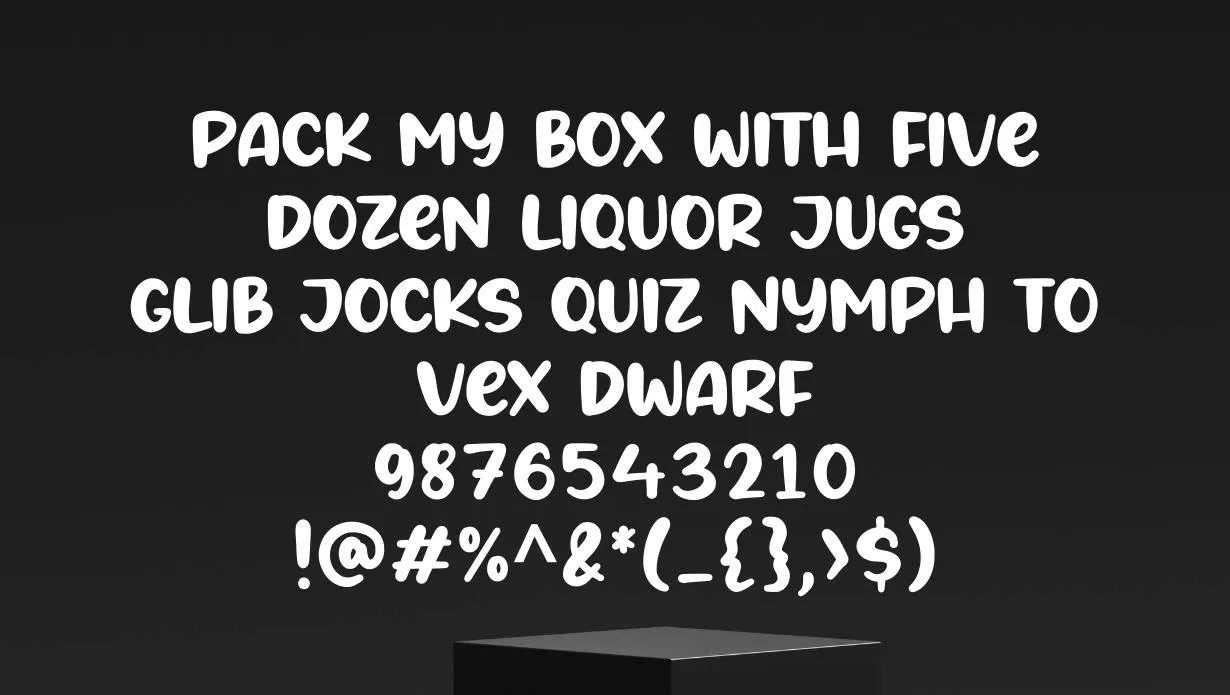
The Angel Cookie Font is a popular fancy font used by many graphic designers. It has a unique, playful look that makes it perfect for adding personality to any project. The Font was created by designer Simon Stratford in 2006. It is available in both TTF and OTF formats.
The Font has a unique history. The Font was inspired by the work of artist Edward Gorey. Gorey’s work often featured playful, whimsical illustrations. This same aesthetic is evident in the Font. It is quite similar to the zapfino font and it has a pairing personality with that, so you can combine them and make something crazy stuff.
The Font is a versatile font that can be used for a variety of purposes. It is perfect for adding personality to any project. Whether you are looking for a unique font for your brand or website, or simply want to add some whimsy to your next project, the font is a great choice.
Who Used Angel Cookie Font?
This font can be used for branding purposes, such as in logos or on websites. The Font can also be used for adding personality to any project. Many designers used this font in Adobe software like photoshop, illustrator many more to make designs. The Font is perfect for website design, as it is unique and versatile.
This font is also commonly used for various creative purposes such as invitations, greeting cards, and even website design. The glyph of this font has a very distinct style that is both elegant and playful. The shapes are rounded, and the strokes have a bouncy quality to them. This makes the font very easy to read, even at smaller sizes.
Angel Cookie Font Family Appearance
| Name | Angel Cookie Font |
| Designer | Edward Gorey |
| Style | Fancy |
Is Angel Cookie a good website font?
This is a great website font because it is very easy to read. The bouncy quality of the strokes makes it easier on the eyes, and the shapes are rounded so they don’t cause eye strain.